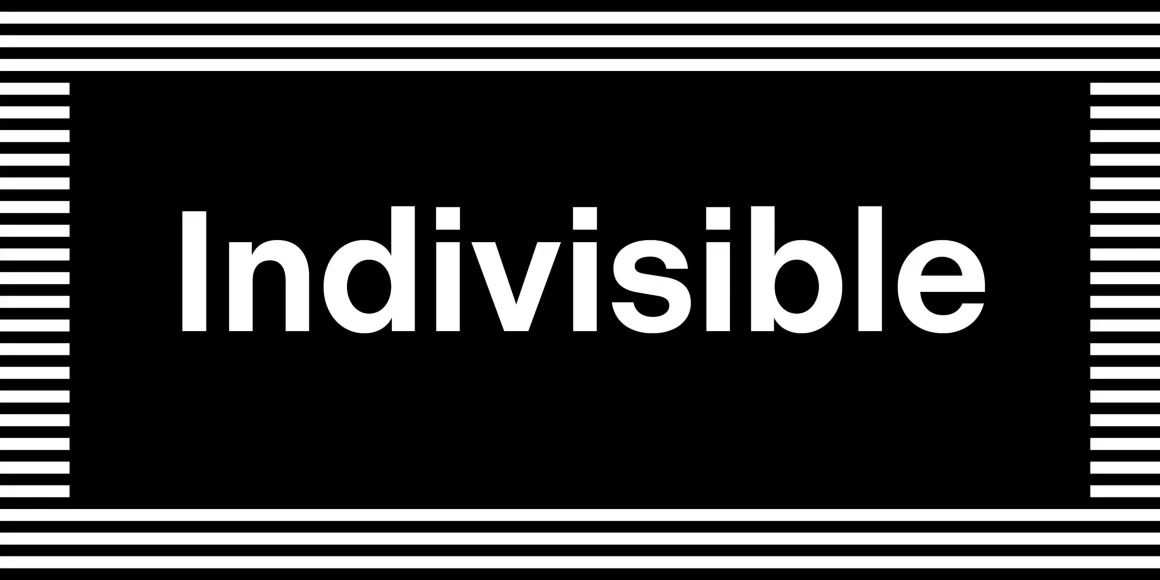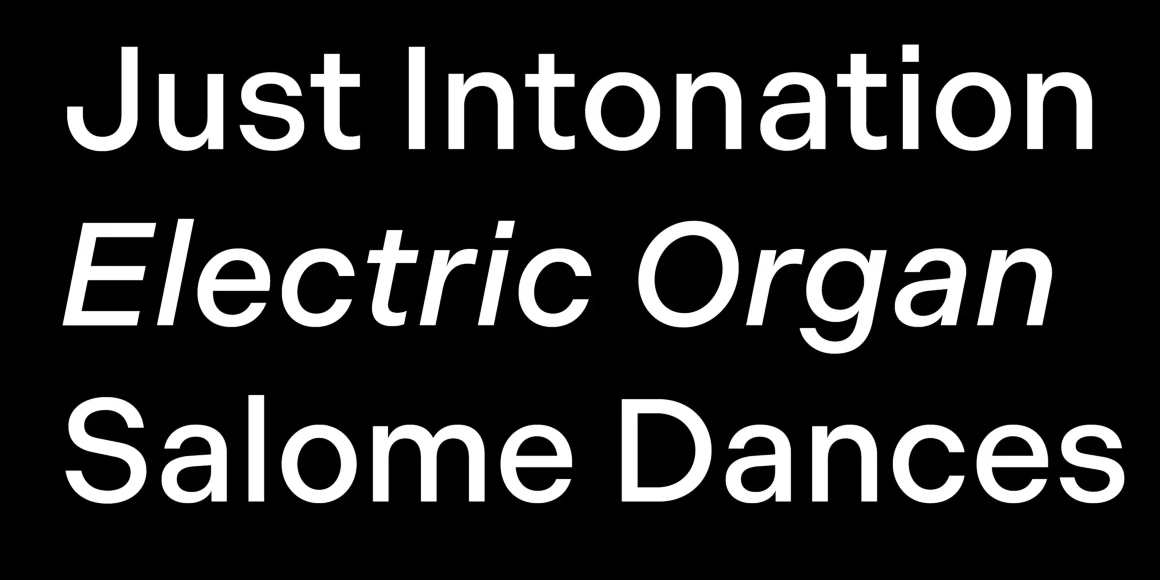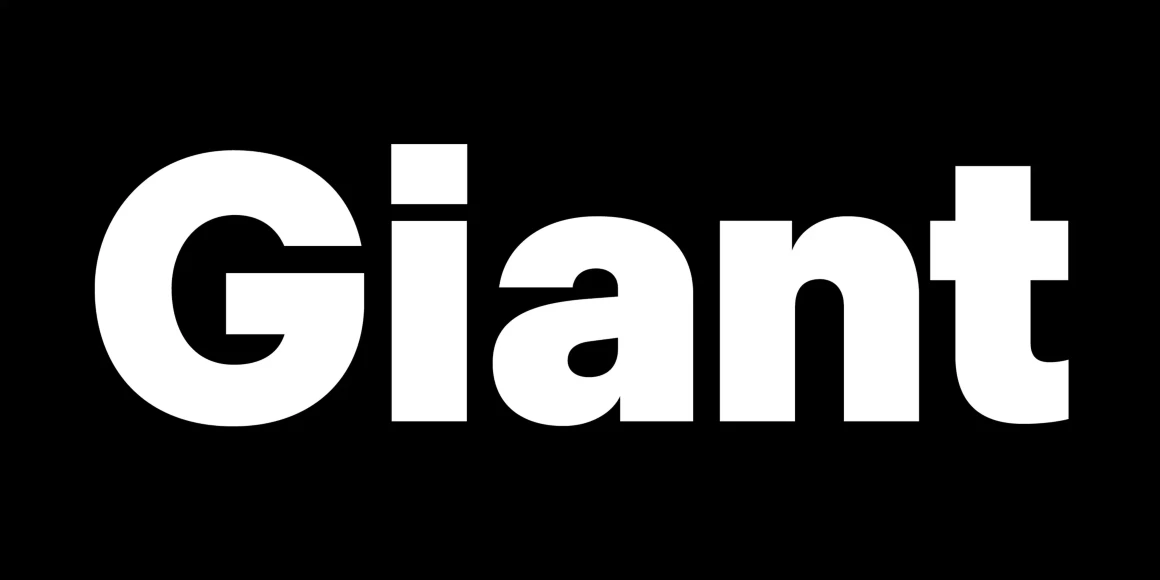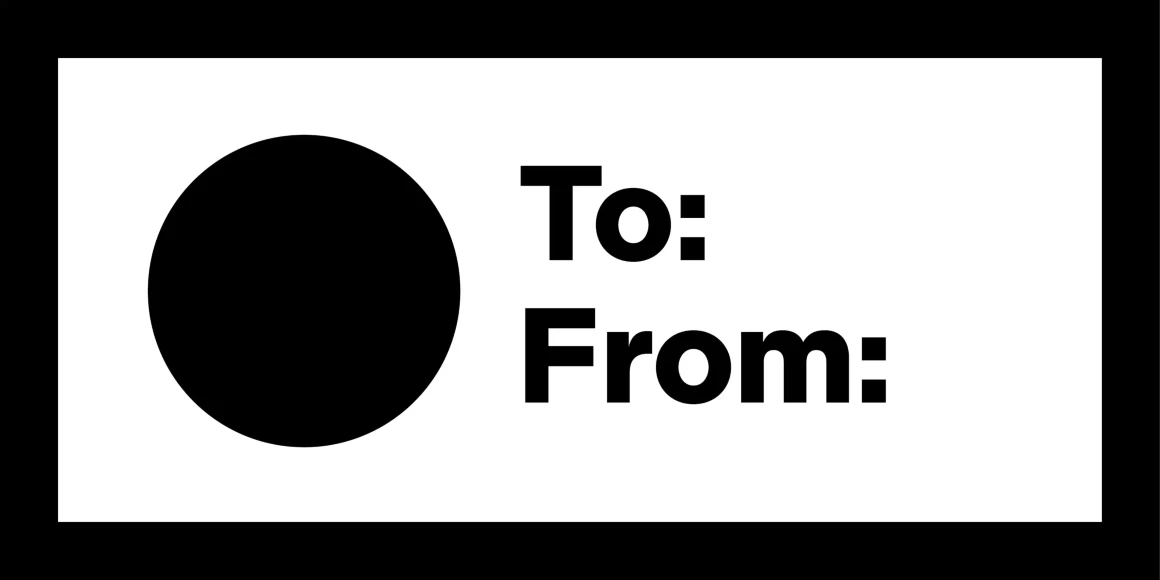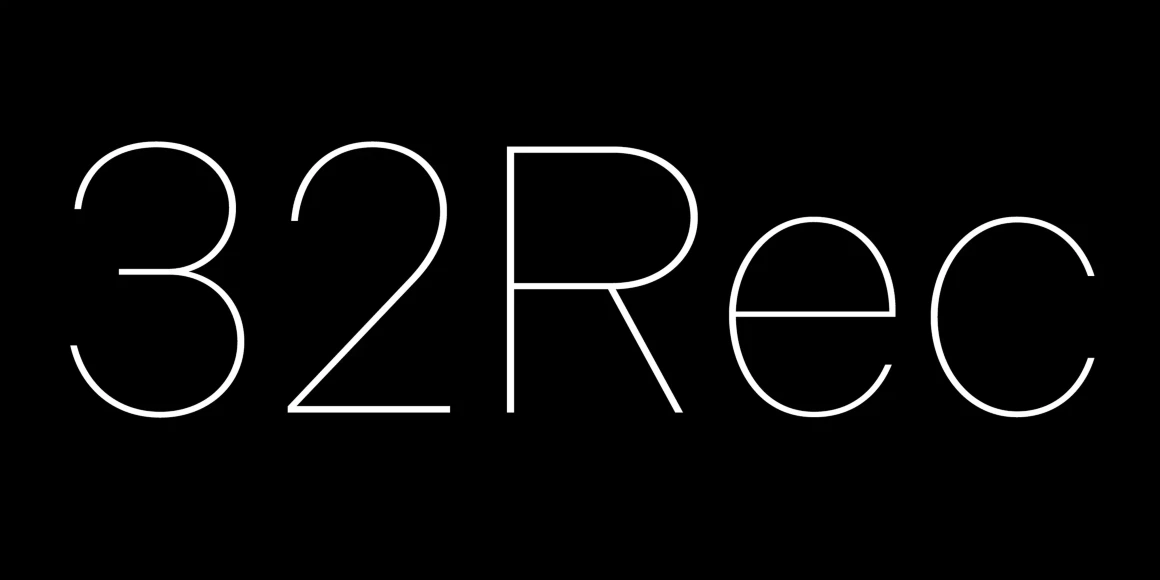
Indivisible
Distilled from neo-grotesque and geometric influences, Indivisible is a general purpose sans serif from designer Eric Olson. The typeface represents several years of incremental on-again, off-again efforts to pair plainness and familiarity with formal warmth (and a bit of personal preference too). The font comes in seven weights with matching italics ensuring designers have a suitable range of styles to choose from when traversing the challenges of print and screen.
Designed by Eric Olson